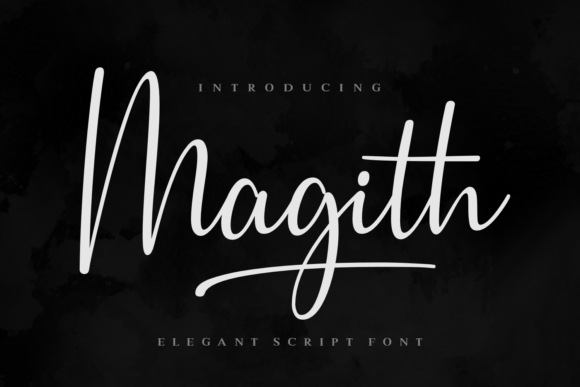
Welcome to the world of Magith, an exquisite script font that encapsulates elegance and fashion in its every curve. Crafted by the creative minds at Creative Fabrica Fonts, Magith is not just a font; it's an experience that's waiting to be explored.
Step into a realm where letters dance gracefully, where words flow with an enchanting rhythm, and where your designs come alive with a touch of sophistication. Magith is the perfect choice for any typography enthusiast seeking to add a touch of finesse to their creative projects.
With Magith, you'll find yourself immersed in a world of beauty and inspiration. Its delicate characters and refined strokes evoke a sense of timeless elegance, while its flowing rhythm adds a dynamic touch to your designs. Whether you're crafting wedding invitations, branding materials, or social media graphics, Magith will elevate your creations to new heights.
The Magith script font is more than just a tool; it's an expression of art, a reflection of your unique style. Its authentic-looking design will give your projects an edge of originality, making them stand out from the crowd. It's the perfect font for those who appreciate the finer things in life and demand excellence in their creative endeavors.
Unlock the full potential of Magith's beauty with its PUA encoding, which grants you effortless access to a treasure trove of glyphs and ligatures. Unleash your creativity and experiment with different combinations to add depth and intrigue to your designs. Magith is a font that keeps giving, providing endless opportunities for self-expression and innovation.
So, what are you waiting for? Embark on a journey of creativity and let Magith take your designs to new heights of sophistication. With its timeless elegance, flowing rhythm, and endless customization possibilities, Magith is the perfect companion for any project that demands beauty, grace, and a touch of the extraordinary.